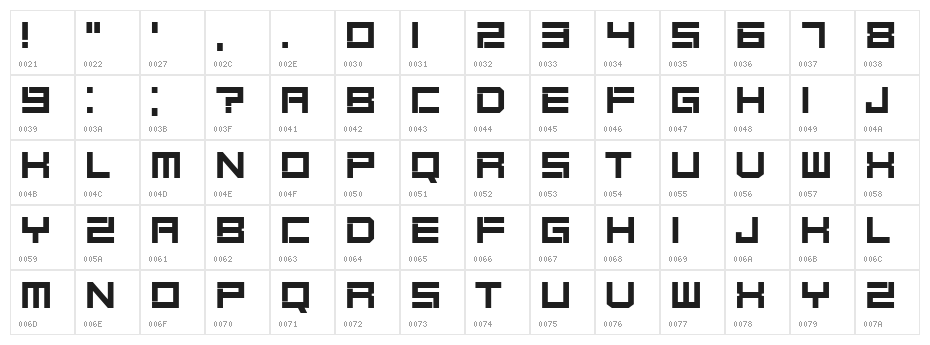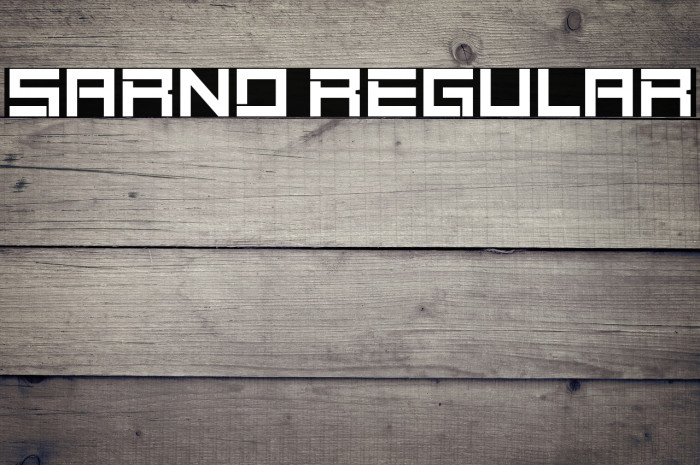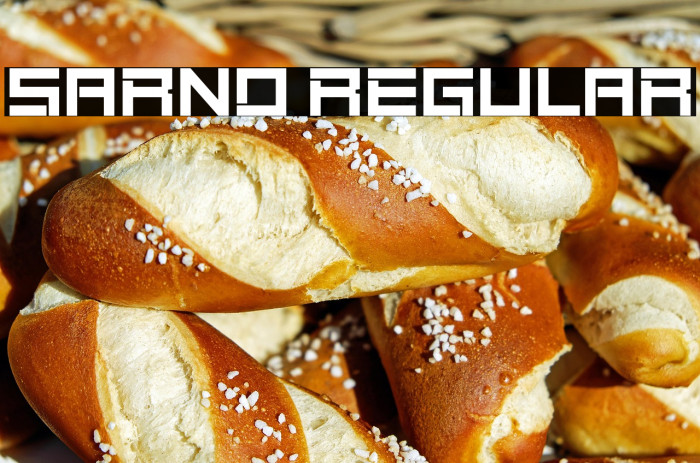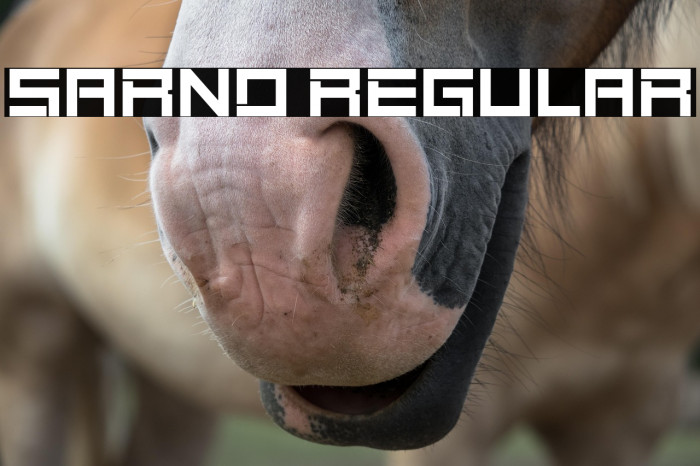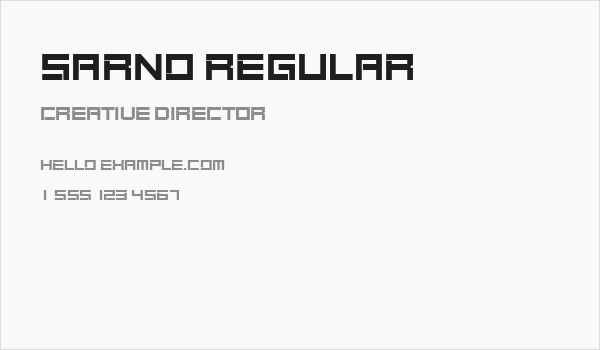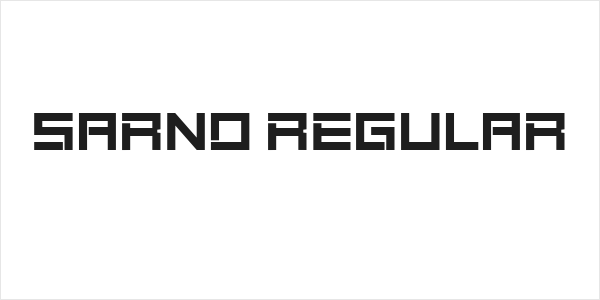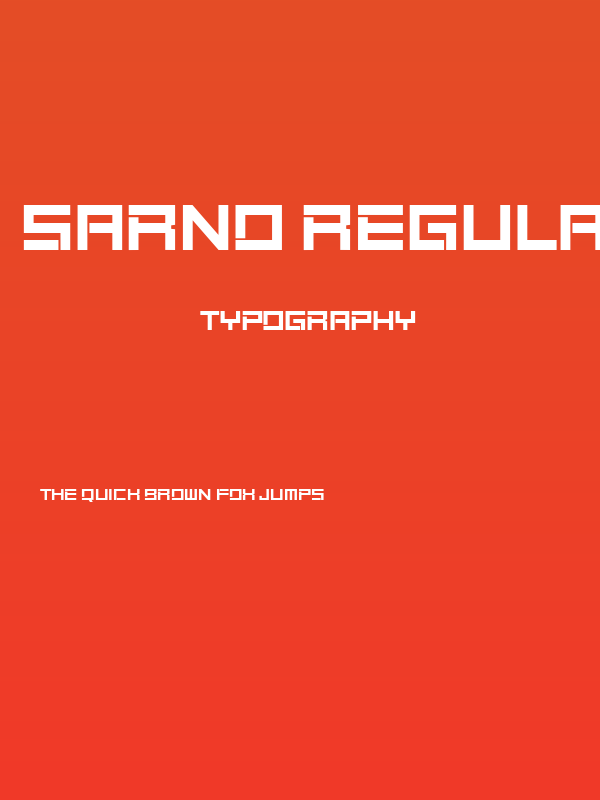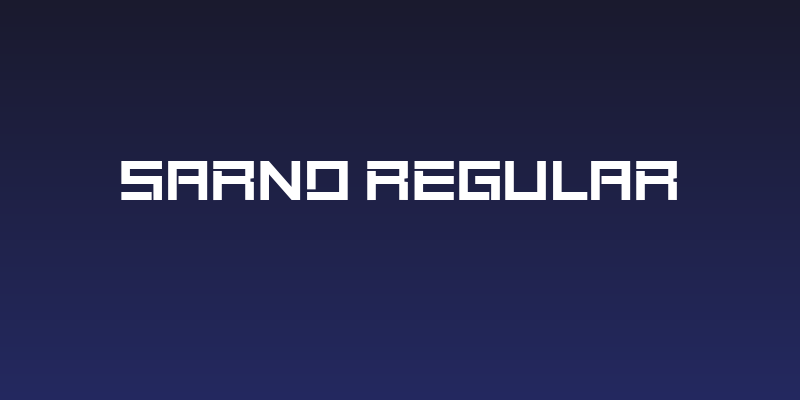
Sarno Regular Font
Sarno Regular Description
This font features a bold, geometric style with a futuristic and digital appearance. The characters are constructed with straight lines and sharp angles, giving it a blocky and robust look. The uppercase and lowercase letters maintain a consistent height, enhancing its uniformity. The numerals and special characters follow the same design principles, ensuring a cohesive visual identity. The font's design is reminiscent of digital displays or sci-fi themes, making it ideal for projects that require a modern and technological aesthetic.
| Proposed Projects | Ideal for technology branding, sci-fi themed posters, video game interfaces, and digital displays. |